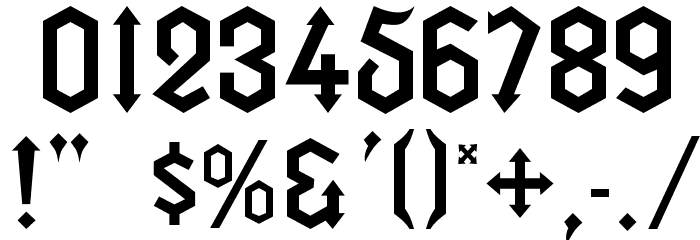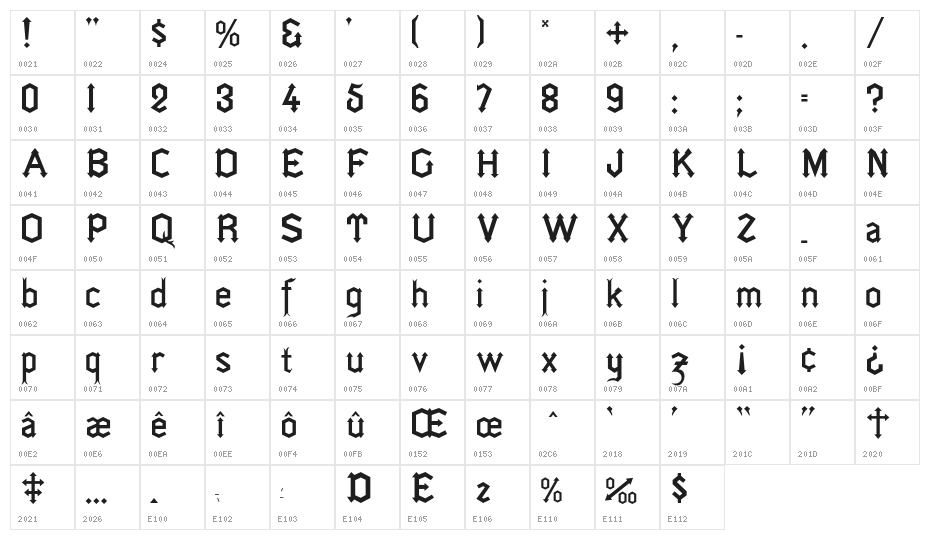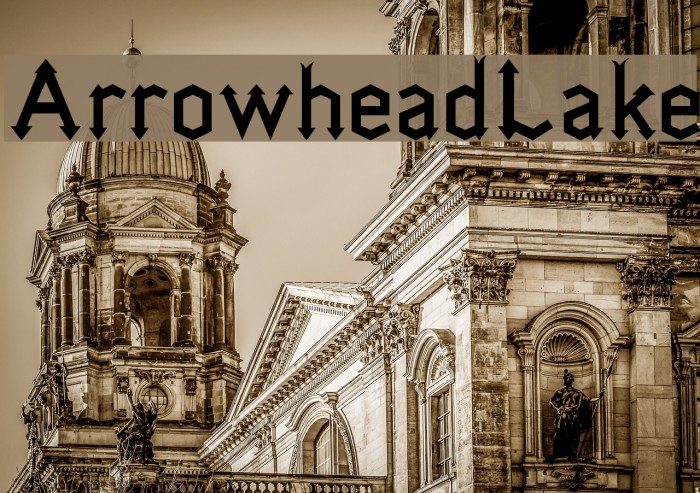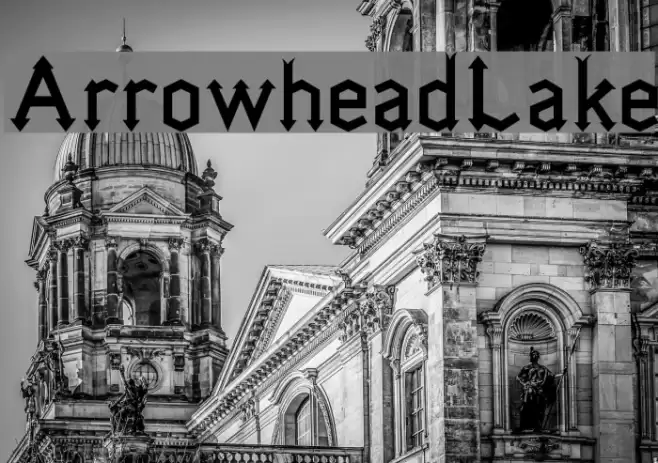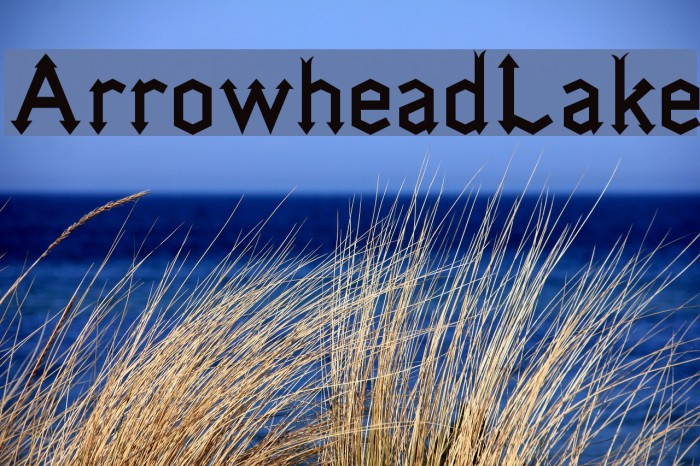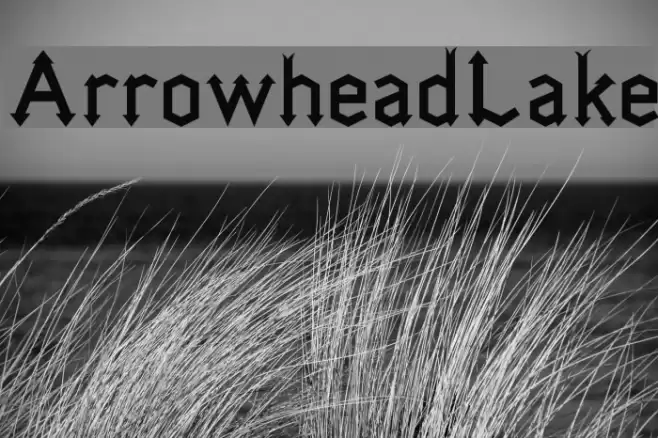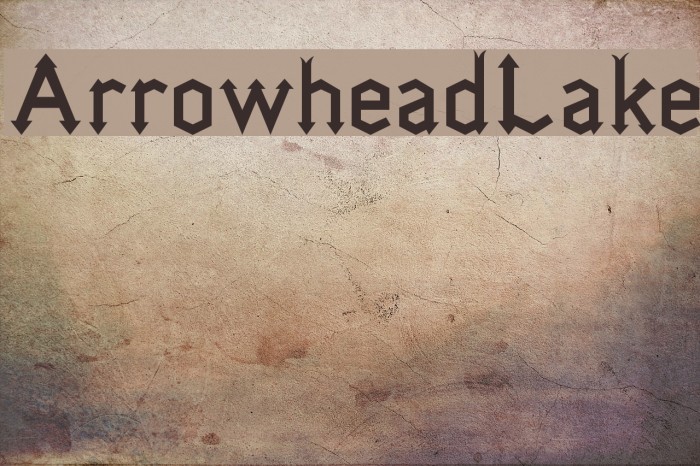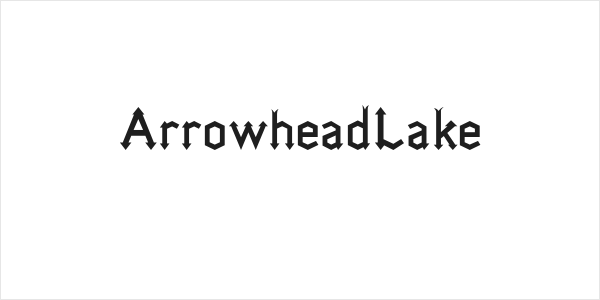
ArrowheadLake Font
ArrowheadLake Description
This font features a bold and striking design with sharp, angular edges reminiscent of arrowheads. The characters have a distinct geometric style, with pointed serifs and a consistent thickness throughout. The uppercase letters are particularly prominent, showcasing a strong presence, while the lowercase letters maintain the same angular aesthetic. Numbers and special characters follow the same design principles, ensuring uniformity across all glyphs. The font's unique style makes it suitable for projects that require a bold and adventurous look.
| Proposed Projects | Ideal for logos, posters, and branding projects that require a bold and adventurous aesthetic. |